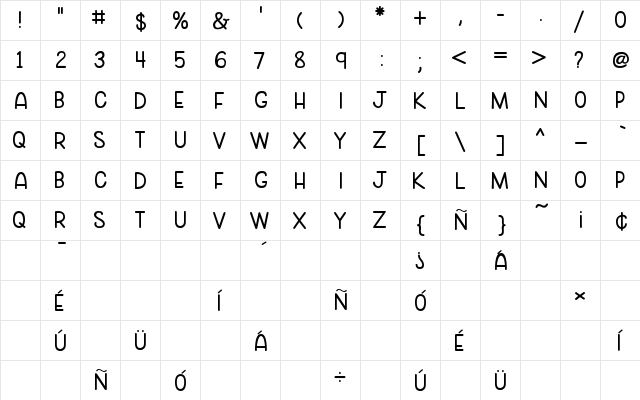
Cozy Caps Medium
Design Context for Cozy Caps Typeface
Cozy Caps offers clean, dependable letterforms without strong stylistic allegiance, making it a practical choice for designers who need flexibility.
Pro Tip: Pair Cozy Caps with a font of contrasting weight or personality to build a more expressive typographic hierarchy.